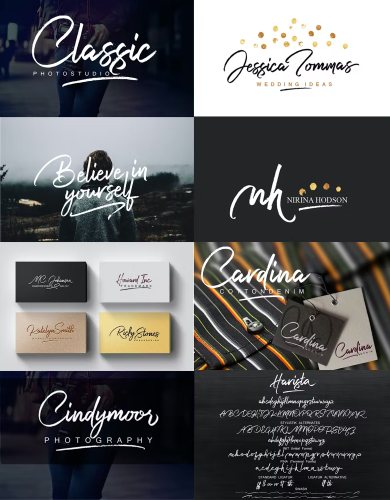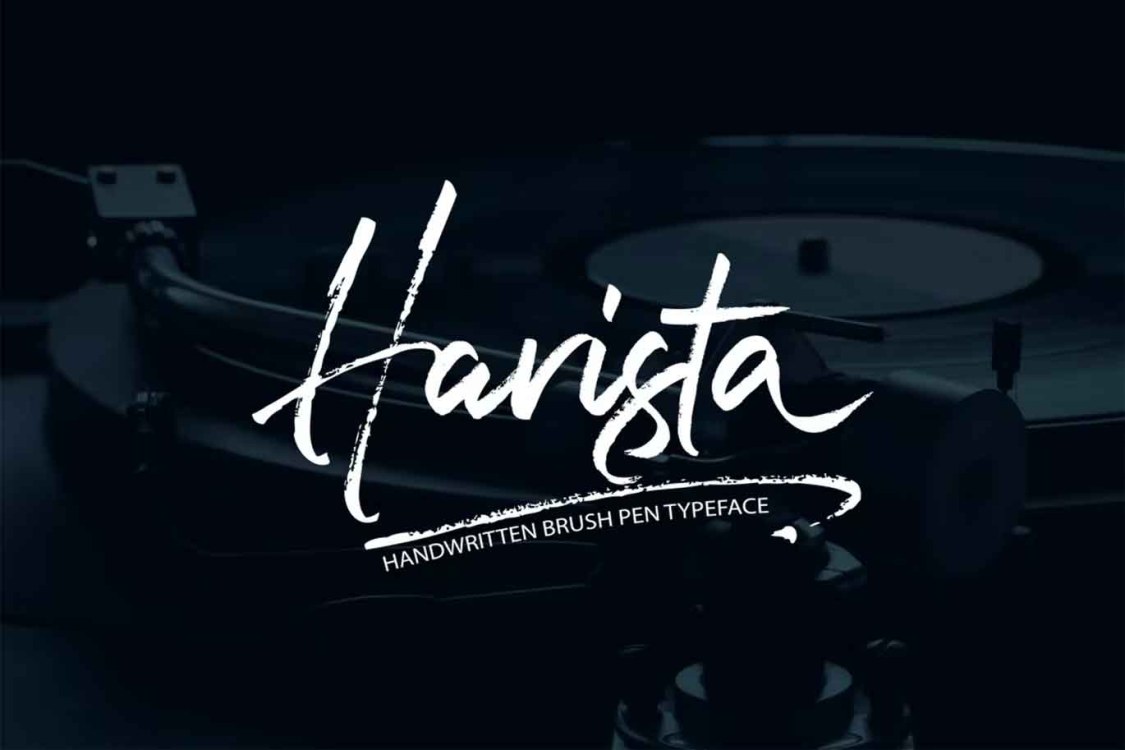
Harista Font
INTRODUCING
Harista Script Handwritten font with Brush Pen. kind of a signature style, perfect for branding projects, packaging products – business cards – logos and others
Harista Script It contains a full set of lowercase & uppercase, a large range of punctuation, numerals, and multilingual support. The font also contains several ligatures, Initial Forms, stylistic alternates, Terminal Form (FINA) & Swash, for you who have opentype capable software (e.g. Photoshop/Illustrator, Corel Draw).
Harista Script allows you to create custom dynamic text. you can access by turning on; Stylistic Alternates, Initial Forms, Terminal Form (FINA), as well as ligatures in Photoshop, Adobe Illustrator, Adobe InDesign or through a panel of glyphs such as Adobe Illustrator, Photoshop CC, Let’s switch from the reguler character into character alternative to get the text with the layout of your dreams.
Where Harista Font works best
Harista Font brings a personal, handwritten warmth to invitations, menus and place cards.
Craft brands — coffee, cosmetics, bakery — use scripts like Harista Font for signature-style logos and labels.
Pair Harista Font with a plain sans for quotes, stories and Pinterest pins that feel handmade.
What is Harista Font good for?
Harista Font is a Script And Handwritten typeface tagged Branding, Handwritten, Packaging, Professional. It works well for headlines, logos, posters, social media graphics and branding projects that need a distinctive script and handwritten look.